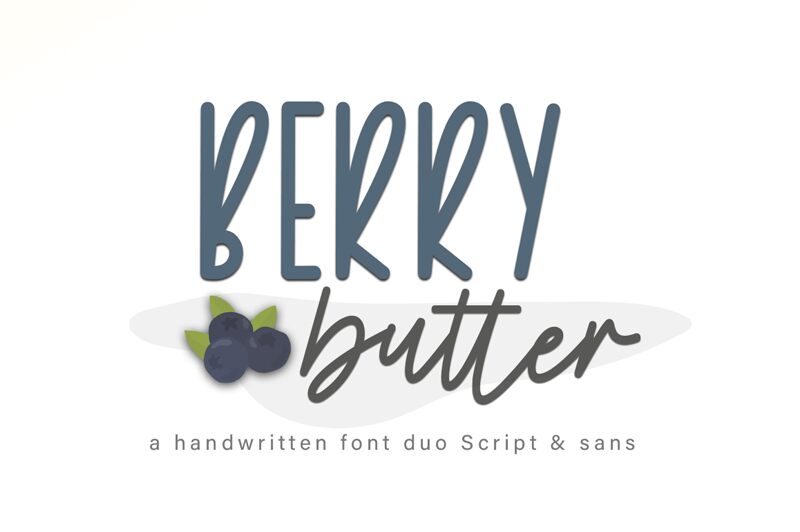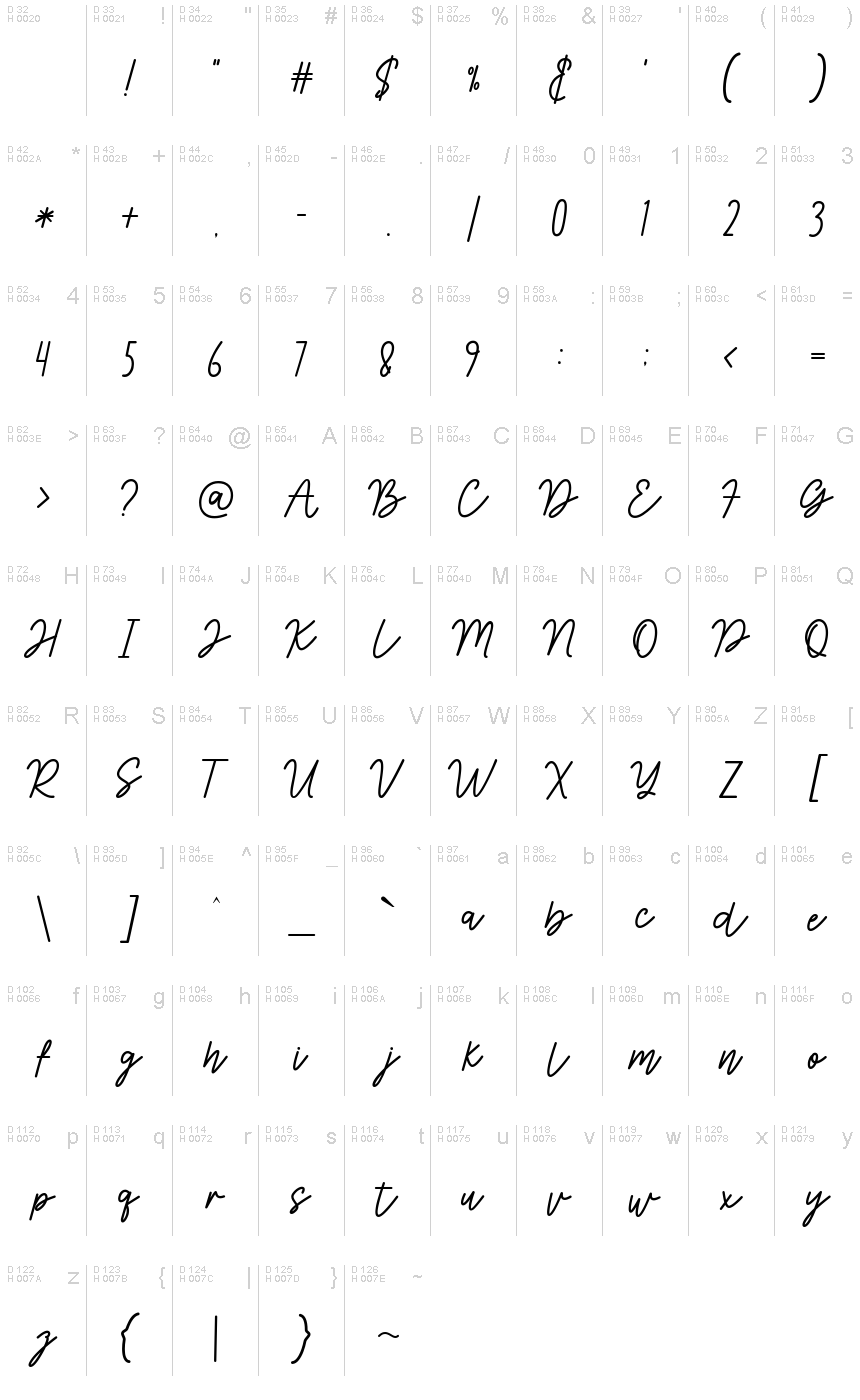
Berry Butter Script
Berry Butter Script font by AM Designs is a handwritten typeface that embodies elegance and casual flair. With its fluid, expressive strokes and organic appearance, this light-weight free font captures a natural, artistic style that is both captivating and versatile.
Ideal for personal branding projects, invitations to weddings or anniversaries, product packaging designs like labels or tags among other kinds of body texts with stylish intentions! Drives creativity forward in fashion headings/logos from formal/business events down to arts & crafts making it an excellent personality tool at your disposal!